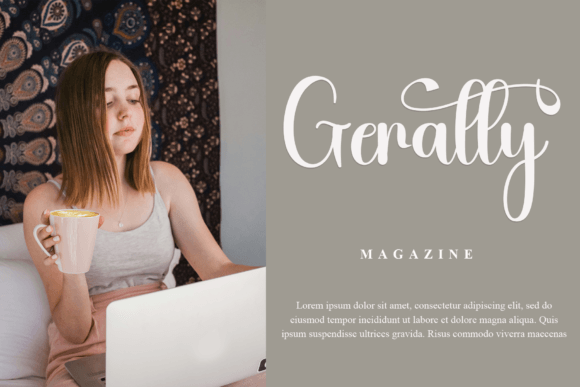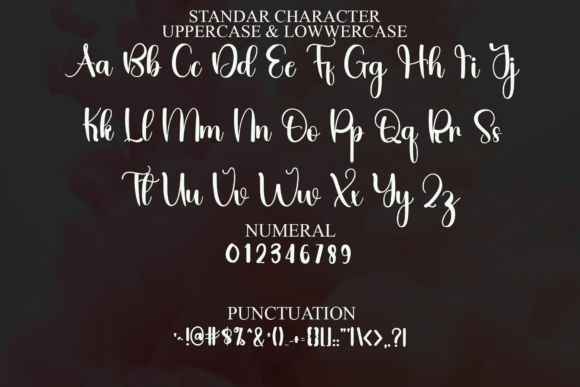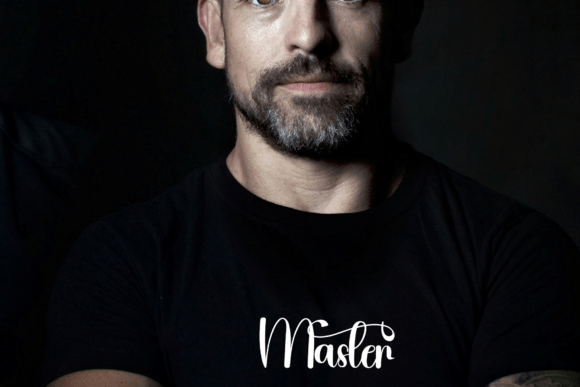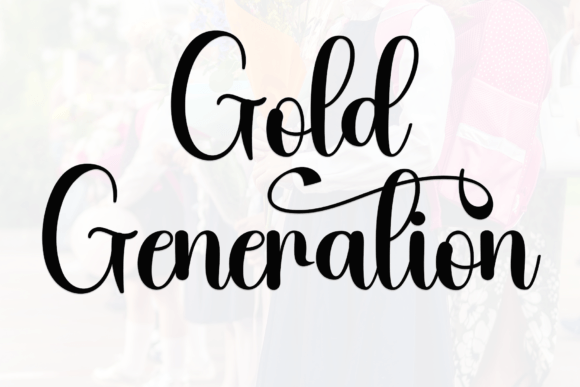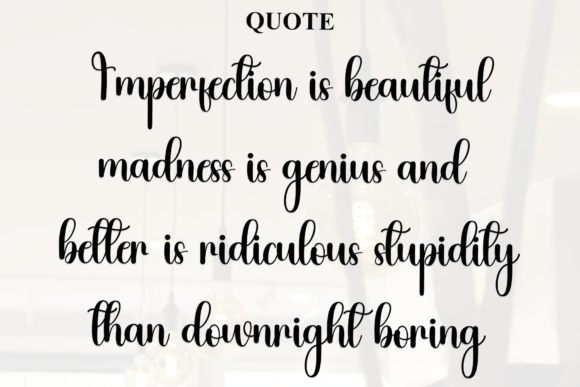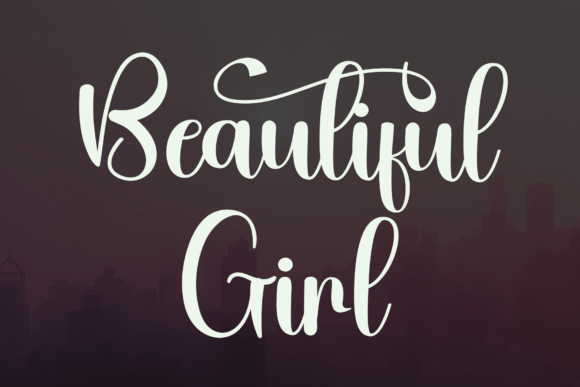
Introducing Angista Font: Elevate Your Creativity with Elegance
Are you a designer, crafter, or DIY enthusiast looking for a font that can add a touch of magic to your creative projects? Look no further than Angista Font, a beautiful script font designed to bring elegance and sophistication to your work. In this article, we’ll explore the features and benefits of Angista Font, and how it can help you turn your creative ideas into stunning works of art.
What is Angista Font?
Angista Font is a carefully crafted script font that combines the beauty of calligraphy with the elegance of modern typography. This font is perfect for anyone looking to add a touch of sophistication to their designs, whether it’s for Instagram, DIY projects, or professional branding. With its flowing curves and intricate details, Angista Font is sure to impress.
Key Features of Angista Font
- PUA Coded: Angista Font is PUA (Private Use Area) coded, which means you can access all the amazing glyphs and ligatures easily. This makes it simple to use the font in your designs and projects, without having to worry about complicated coding or technical issues.
- Elegant Script: Angista Font features a beautiful, flowing script that is perfect for creating stunning calligraphy pieces, elegant headings, and sophisticated body text.
- Magical Touch: With its intricate details and whimsical flourishes, Angista Font adds a touch of magic to any design or project. Whether you’re creating something for personal use or for a client, this font is sure to impress.
- Versatile: Angista Font is versatile and can be used for a wide range of projects, from Instagram graphics and DIY crafts to professional branding and marketing materials.
Uses for Angista Font
Angista Font is perfect for a variety of creative projects, including:
- Instagram Graphics: Add a touch of elegance to your Instagram feed with Angista Font. Use it to create stunning graphics, quotes, and stories that will engage and inspire your followers.
- DIY Projects: Angista Font is perfect for DIY enthusiasts who love crafting, scrapbooking, and making handmade cards. Use it to add a personal touch to your projects and make them truly special.
- Calligraphy: With its beautiful script and elegant flourishes, Angista Font is perfect for creating stunning calligraphy pieces. Use it to add a touch of sophistication to your work and make it truly stand out.
- Branding and Marketing: Angista Font is also perfect for professional branding and marketing materials, such as logos, brochures, and business cards. Use it to add a touch of elegance and sophistication to your brand and make it truly memorable.
Tips for Using Angista Font
Here are a few tips for getting the most out of Angista Font:
- Experiment with Different Sizes: Angista Font looks great in a variety of sizes, from small and delicate to large and bold. Experiment with different sizes to find the one that works best for your project.
- Play with Colors: Angista Font looks great in a range of colors, from classic black and white to bold and bright hues. Experiment with different colors to find the one that works best for your project.
- Mix and Match: Angista Font pairs well with a variety of other fonts and styles. Experiment with mixing and matching different fonts to create a unique and eye-catching look.
Angista Font is a beautiful and elegant script font that is perfect for designers, crafters, and DIY enthusiasts. With its PUA coding, magical touch, and versatile design, this font is sure to elevate your creativity and turn your projects into stunning works of art. Whether you’re looking for a font for Instagram, DIY projects, or professional branding, Angista Font is the perfect choice. So why wait? Download Angista Font today and start creating something truly special!